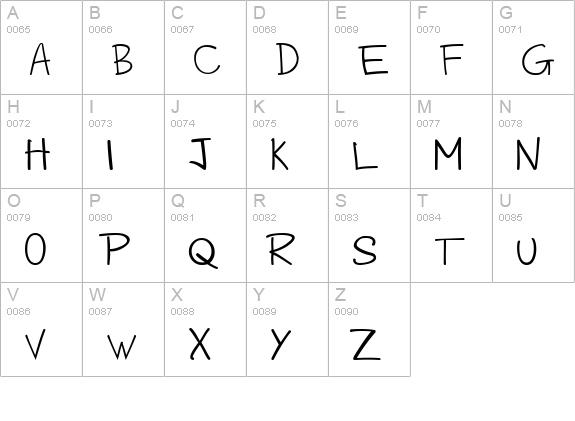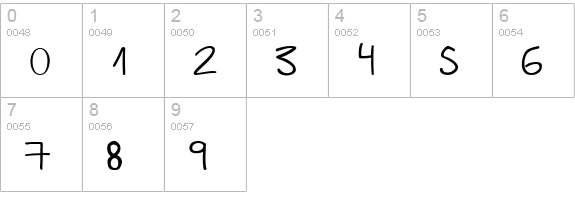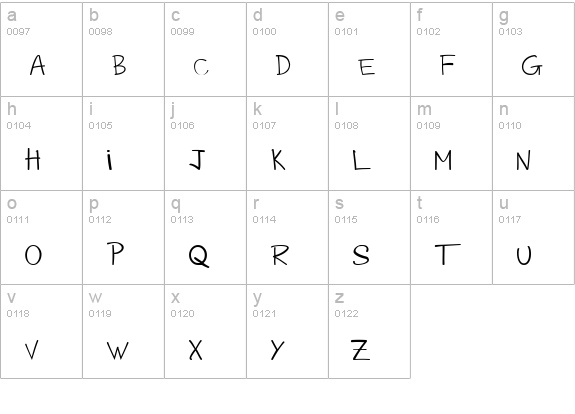
Bayao Hand Normal Font Details
Bayao Hand Normal is the standard, neutral variant in the Bayao typeface family \xE2\x80\x94 well suited to general body text, paragraphs, and standard typographic work.
Bayao Hand Normal font is a charming and versatile typeface that exudes a warm and friendly feel. Its hand-drawn style gives it a unique and playful look, making it perfect for a variety of design projects. Whether you're creating posters, invitations, or social media graphics, this font will add a touch of personality and whimsy to your work. The best part? Bayao Hand Normal font is completely free to download at FontsMarket.com. With just a few clicks, you can add this delightful font to your collection and start using it in your designs right away. Don't miss out on this opportunity to enhance your projects with the charm and character of Bayao Hand Normal font. Download it today and let your creativity shine!